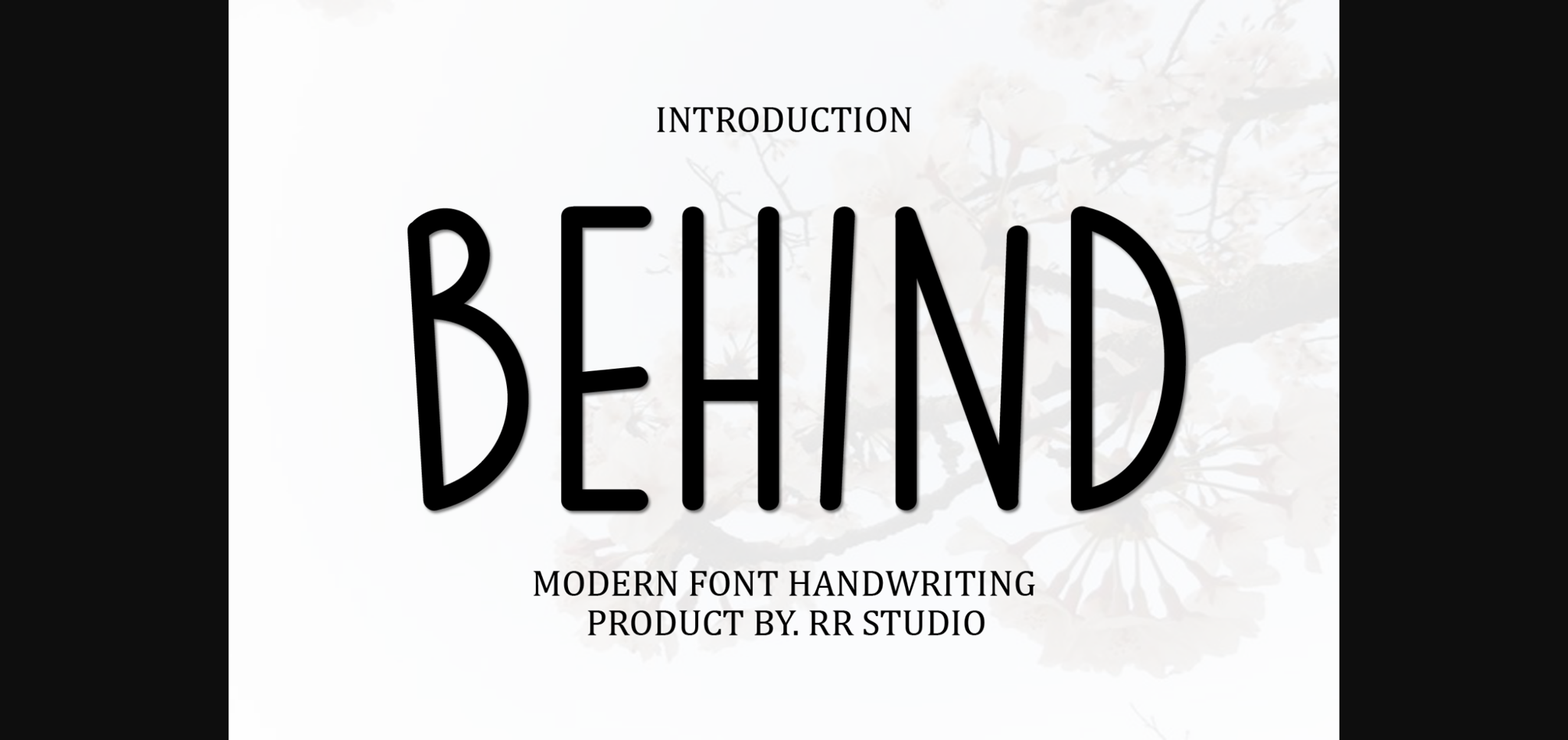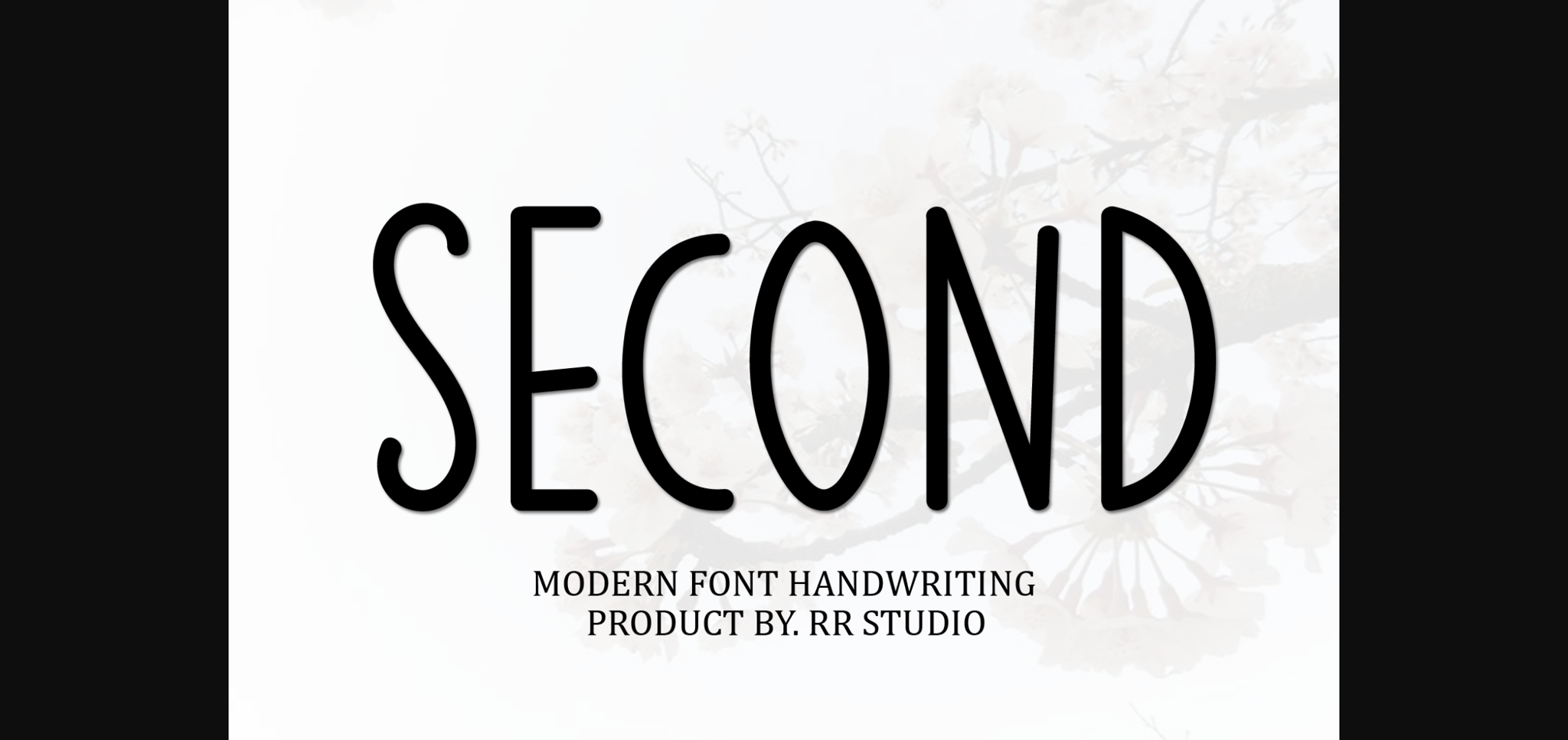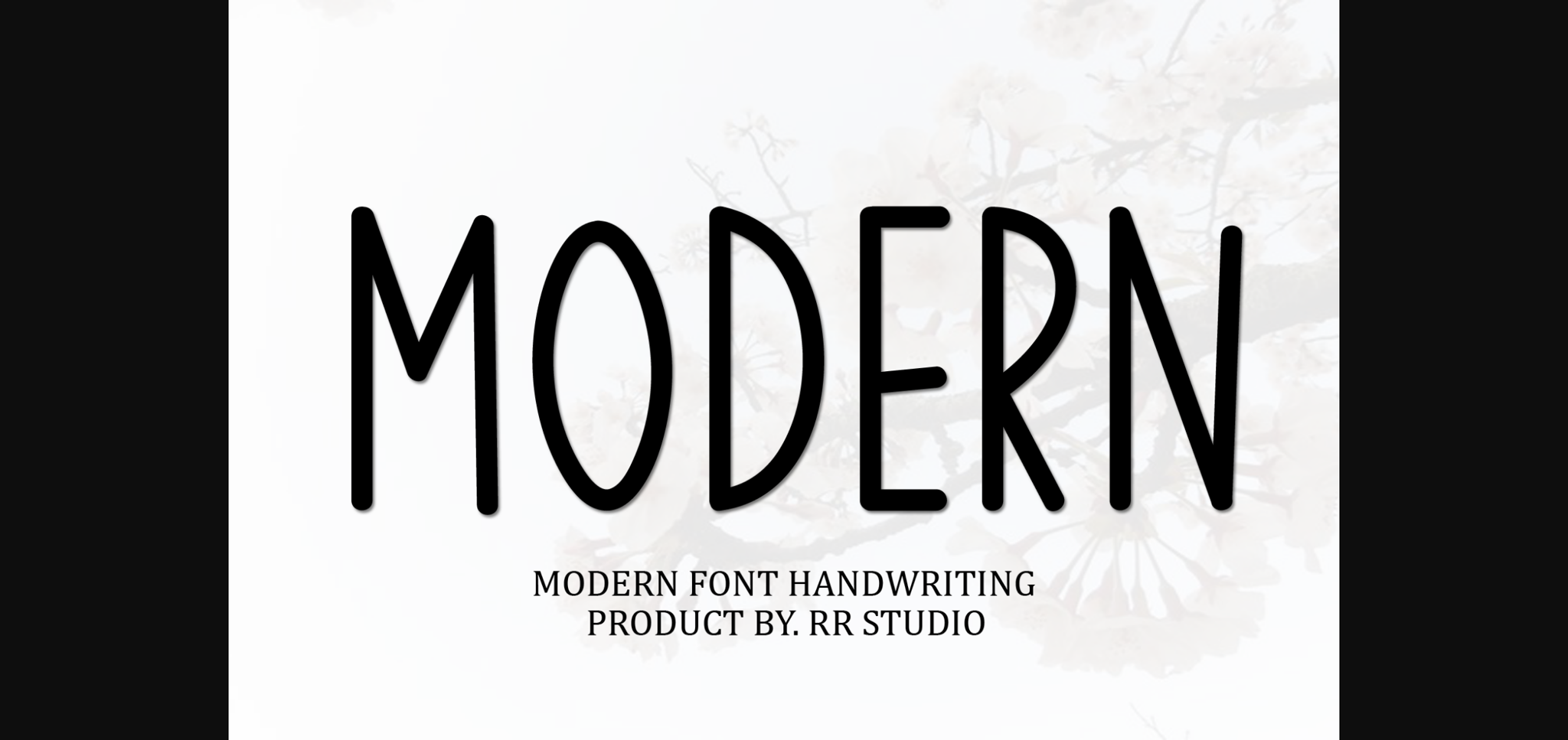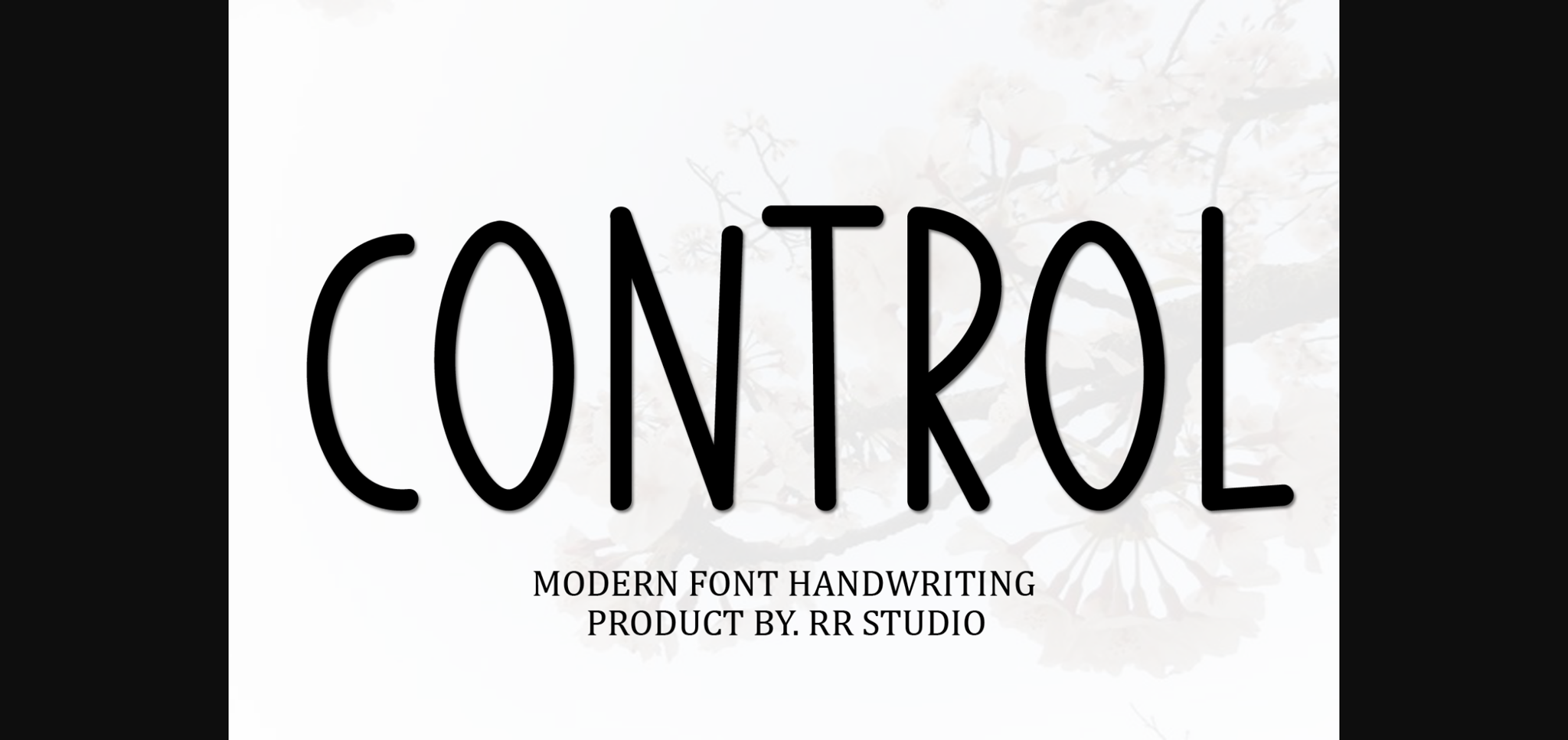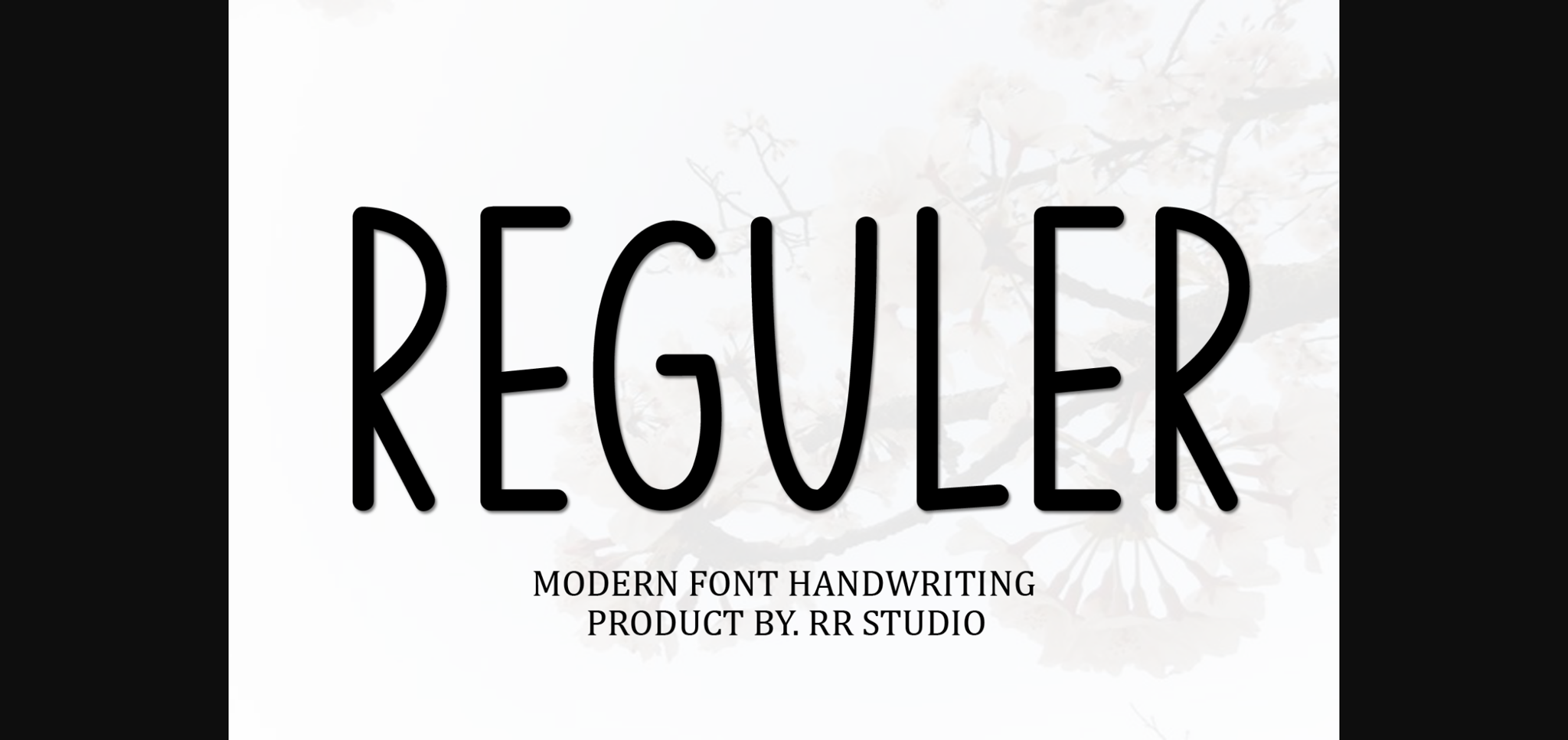
Behind Font
About Behind Font
Behind is a straightforward and tidy sans-serif font that embodies simplicity and clarity. Its clean lines and balanced proportions make it perfect for various design applications, from body text in publications to headers on websites. Behind maintains readability while offering a modern and uncluttered aesthetic for your projects.